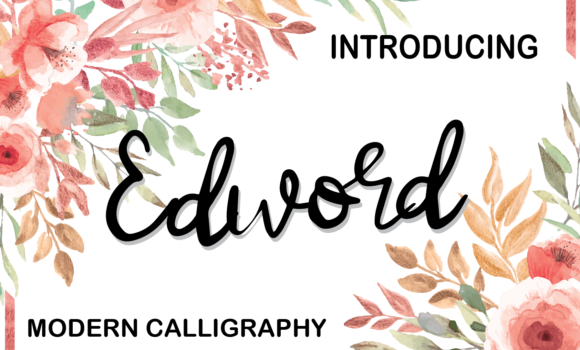
edword
Edword Font – Free Download Introduction to Edword Font Edword is a tender and romantic script with a playful twist. 📸 Preview Gallery 2 images 📌 Product Name Edword Font 👤 Author Patrick Design 📂 Category Explore ⬇️ Download Edword